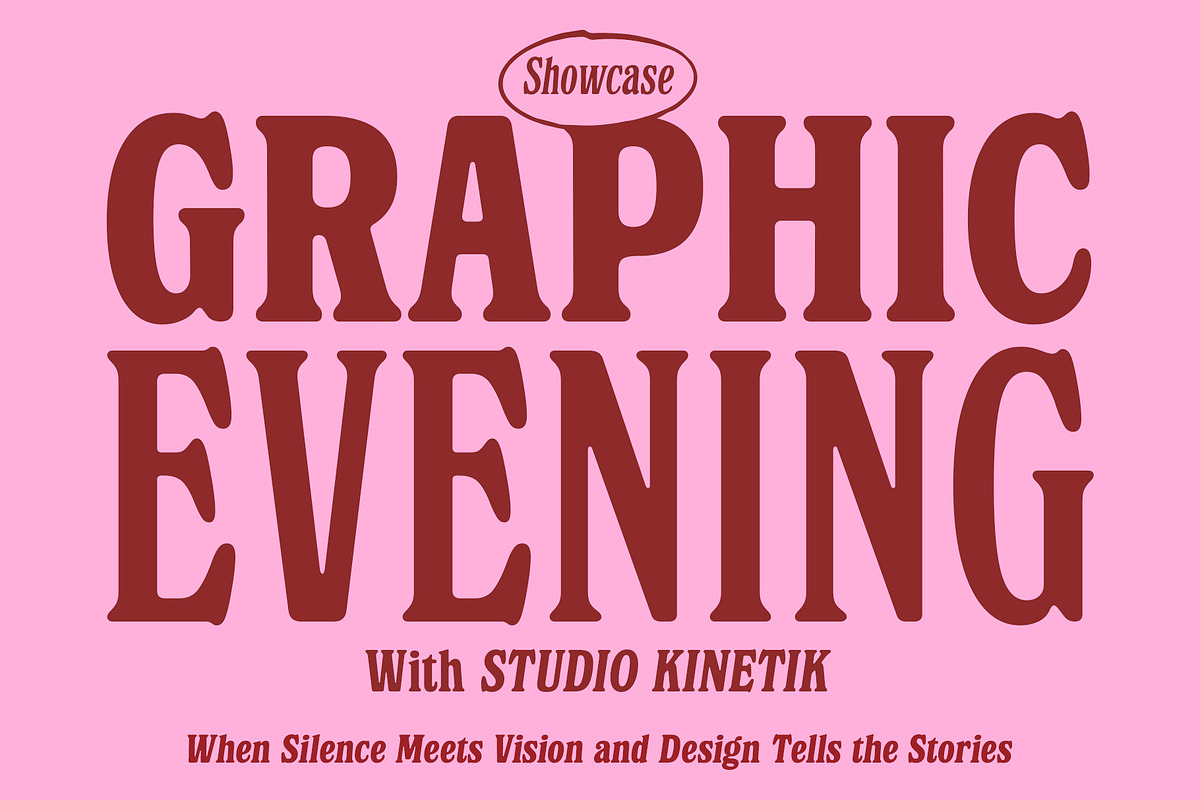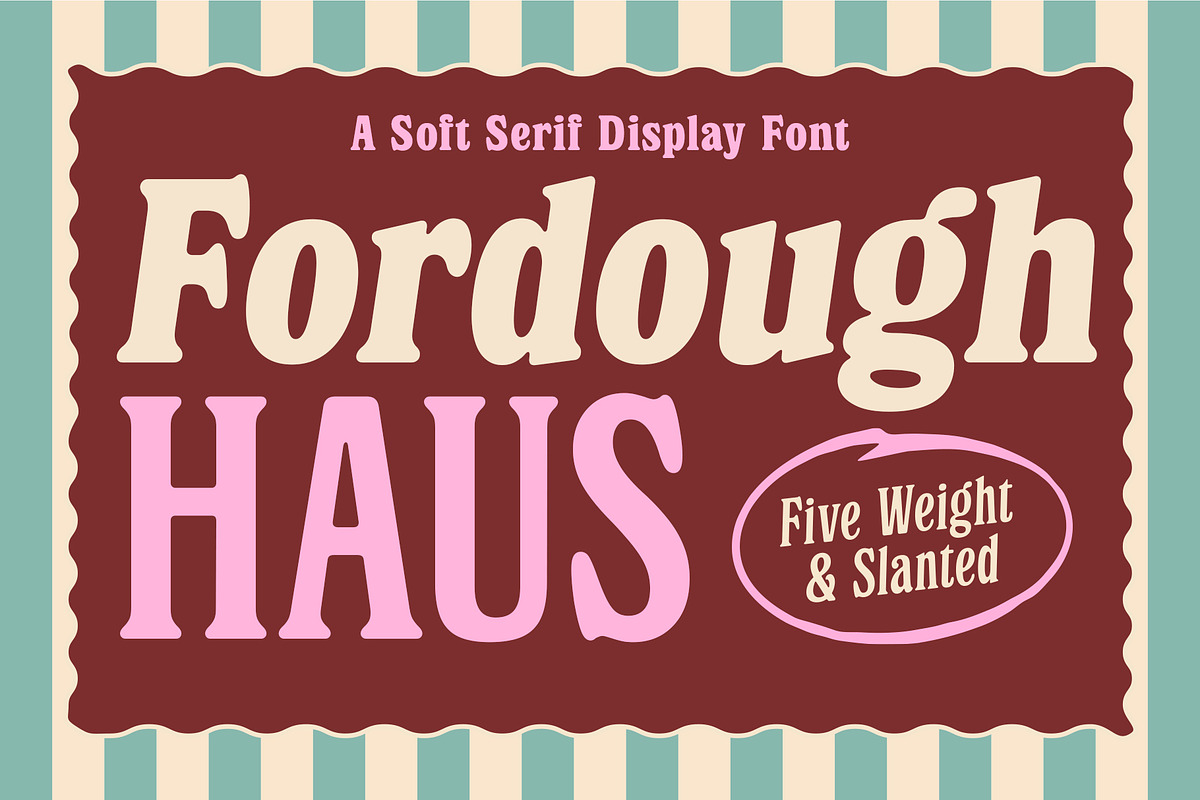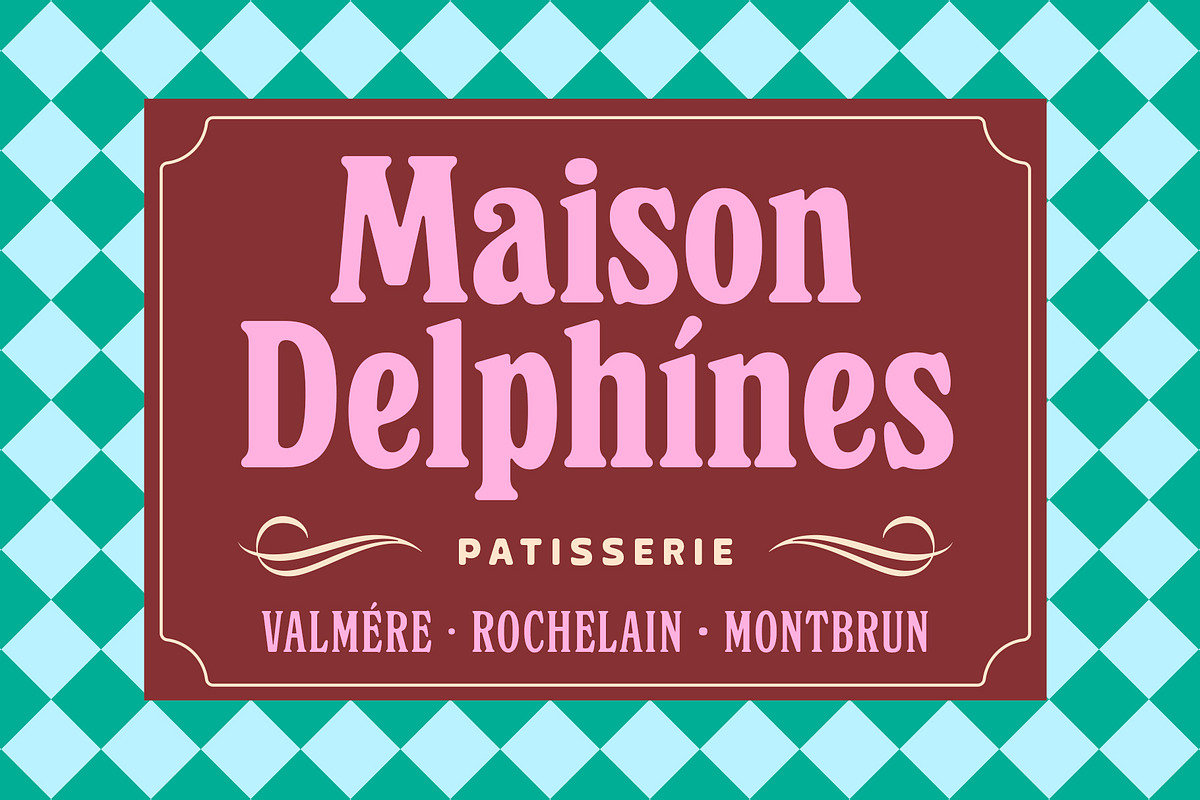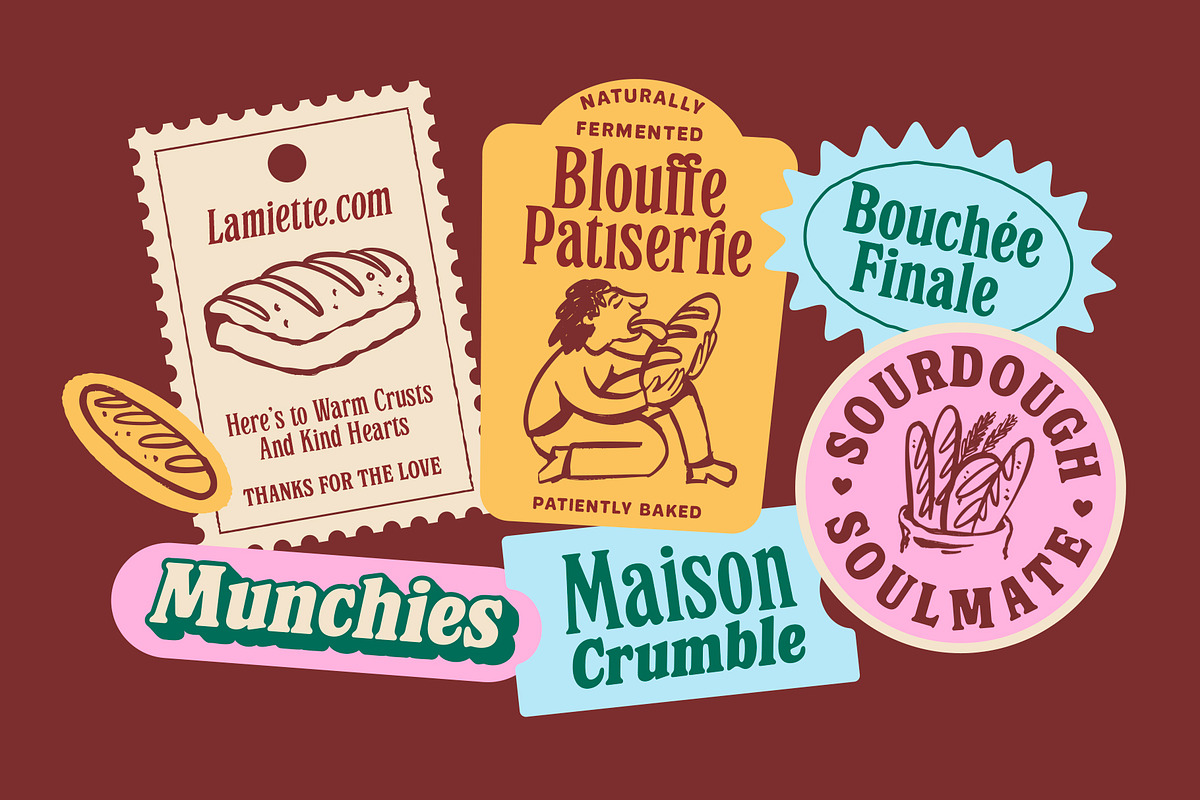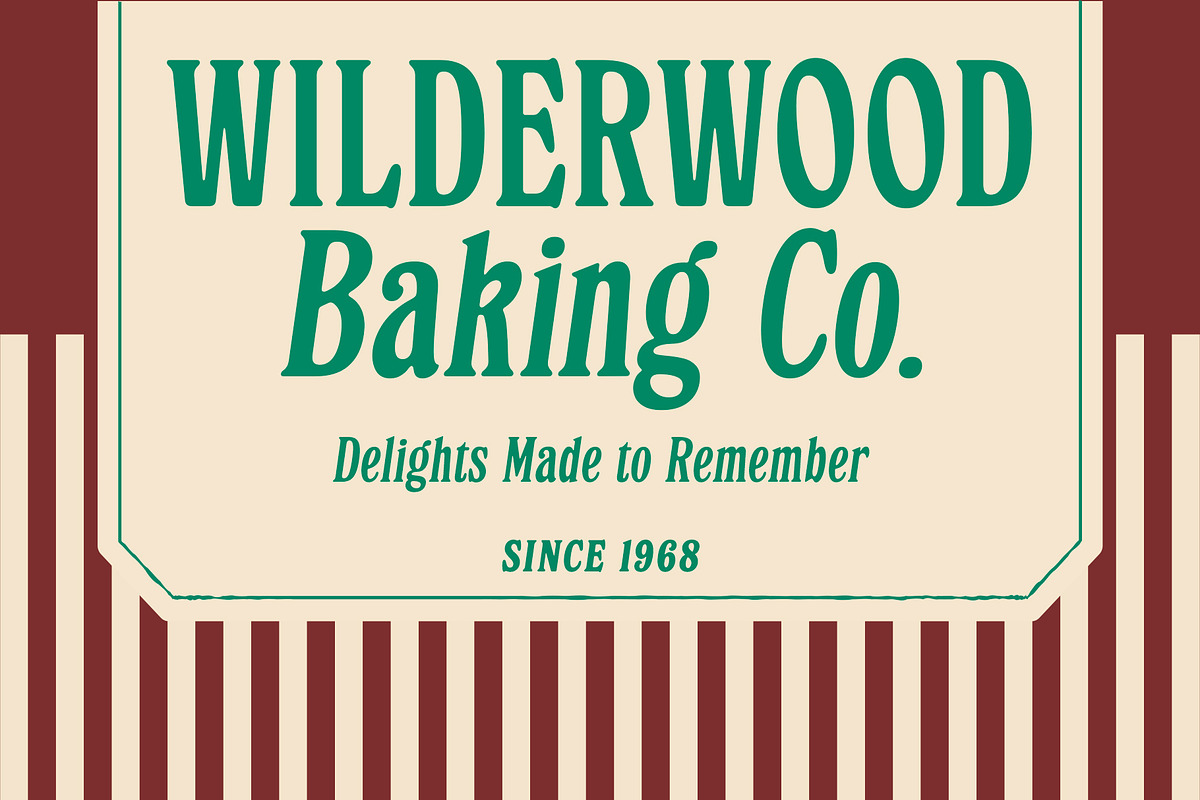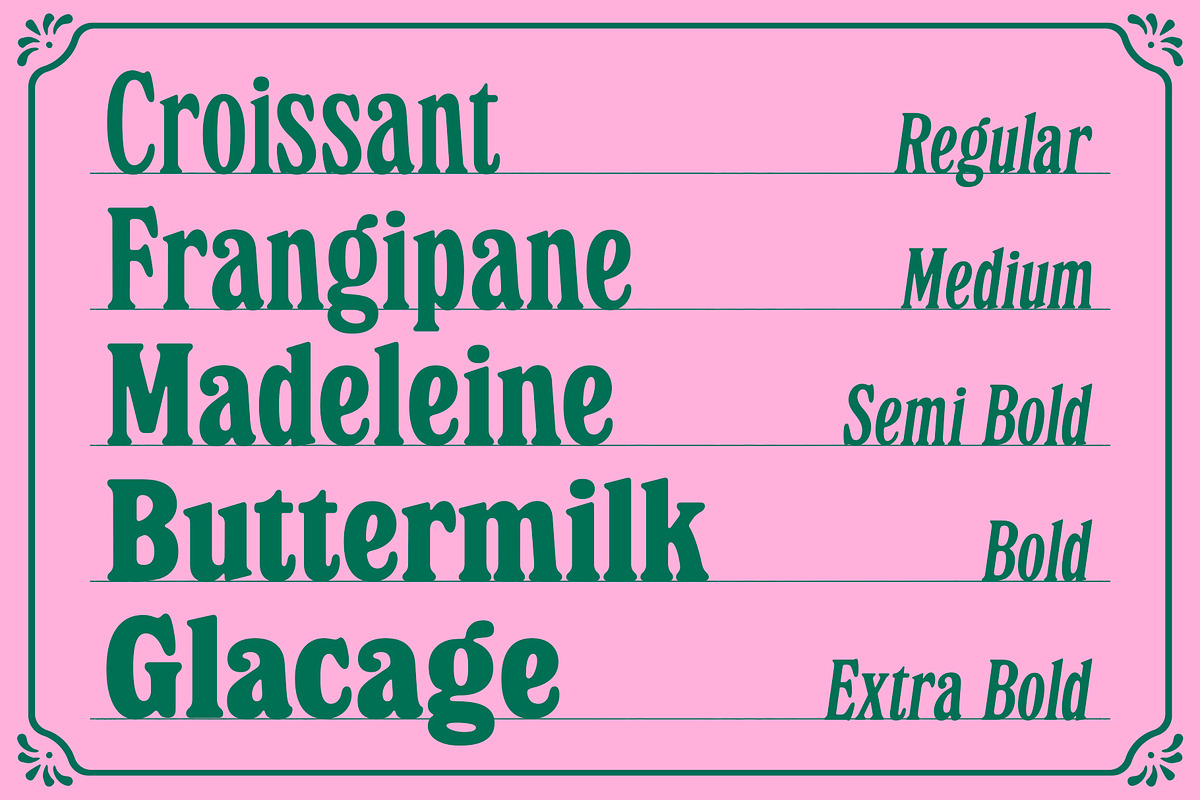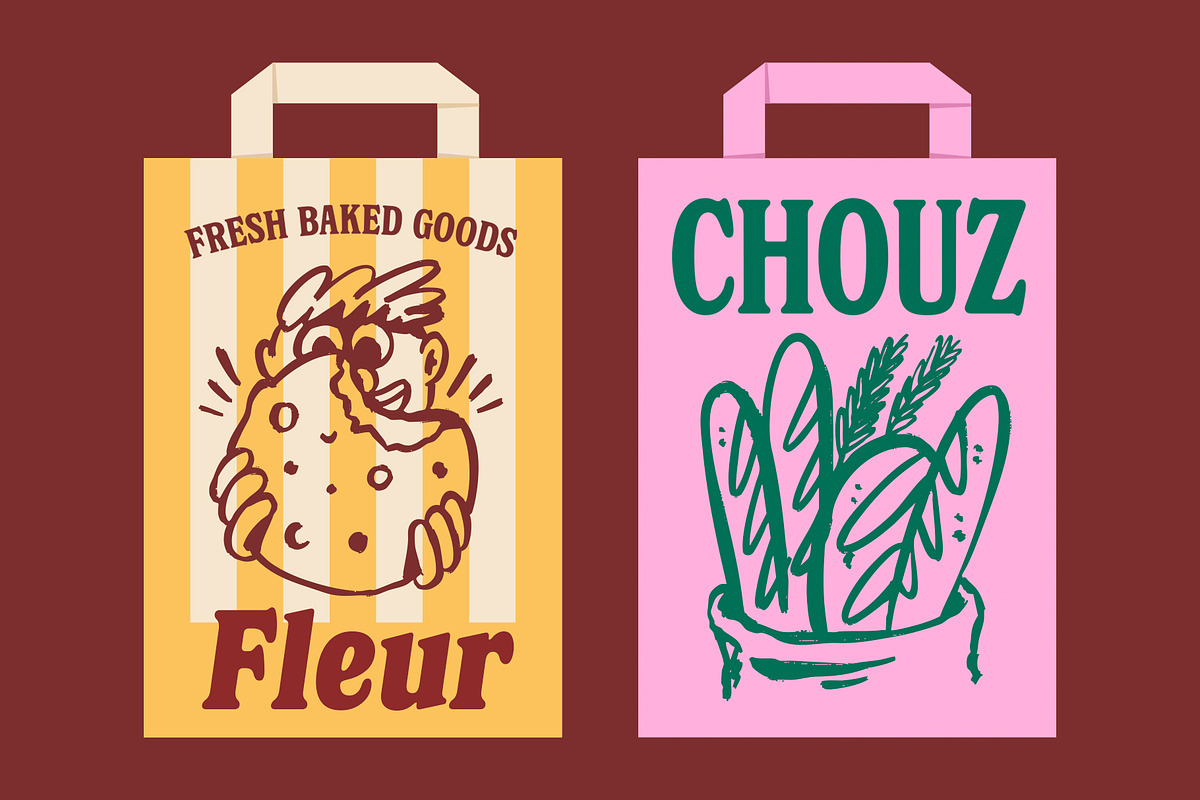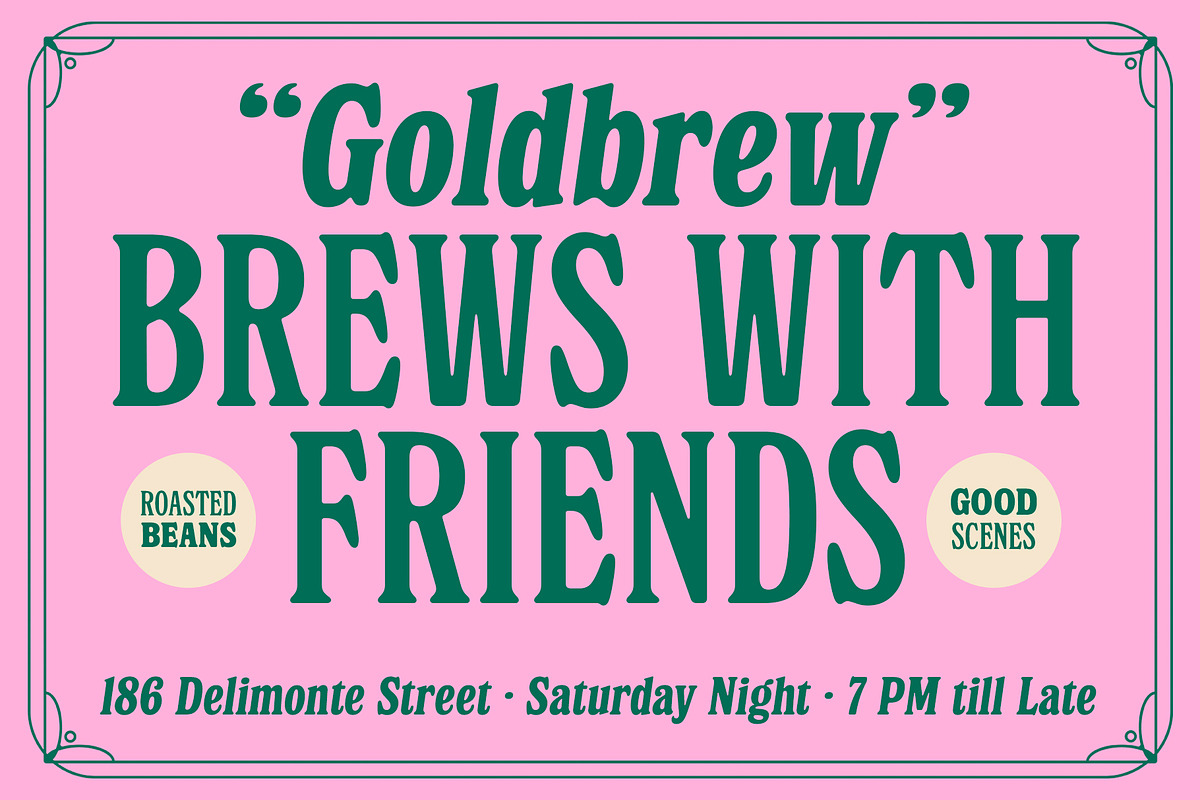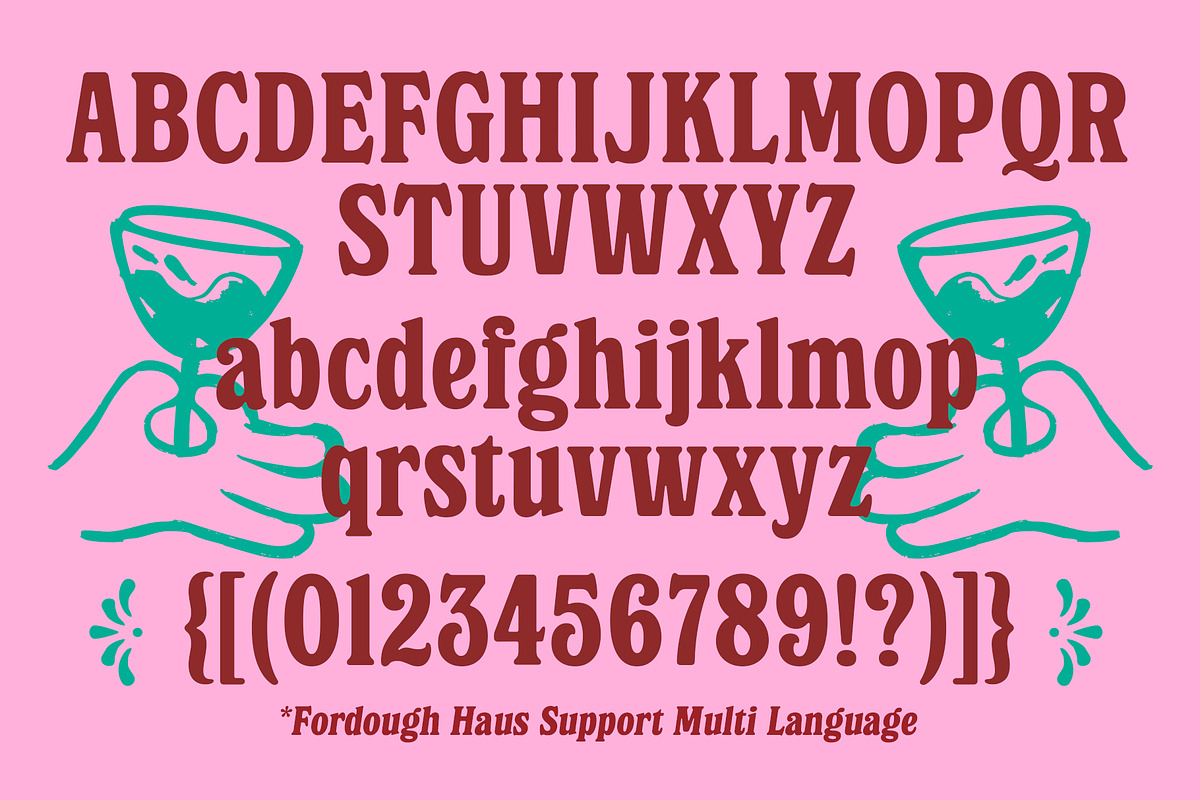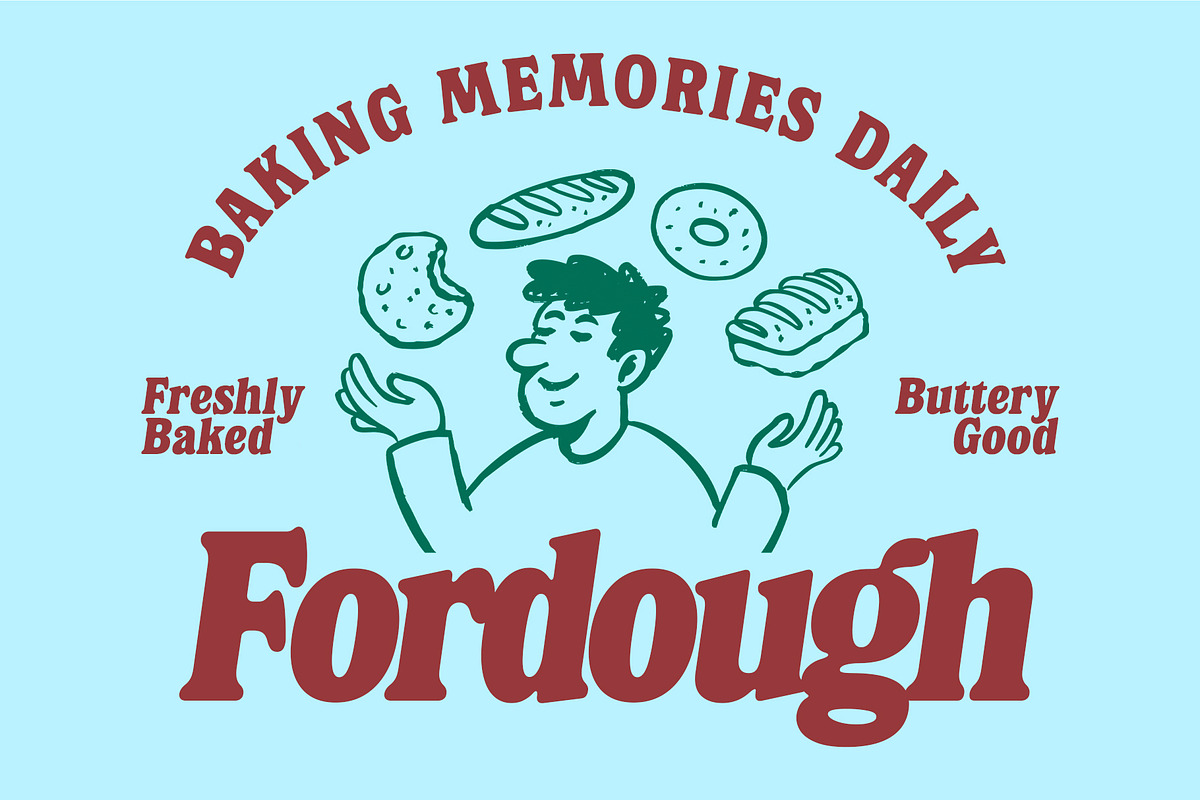
Fordough Haus - Variable Soft Serif
Fordough Haus, a soft and sweet Serif that’s perfect for vintage bakery branding, café logos, menu posters, packaging labels, and editorial projects that need a fully featured font. Comes with 5 Weights and Slanted Styles, ready to make your designs pop with a playful, and fun feel.